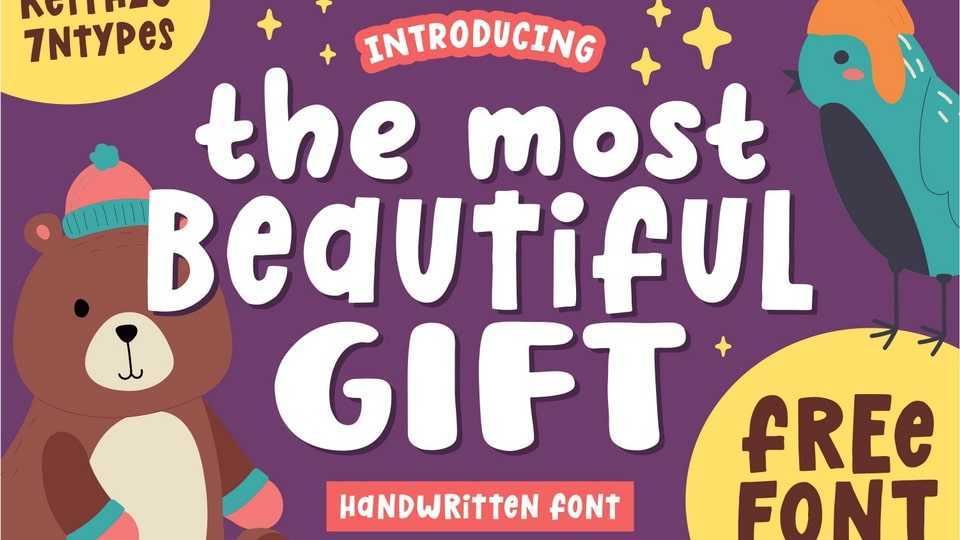
Download The Most Beautiful Gift font, a fun and bold handwritten typeface. This font is perfect for children themed designs, especially when combined with bright colors.
Designer: Keithzo (7NTypes)